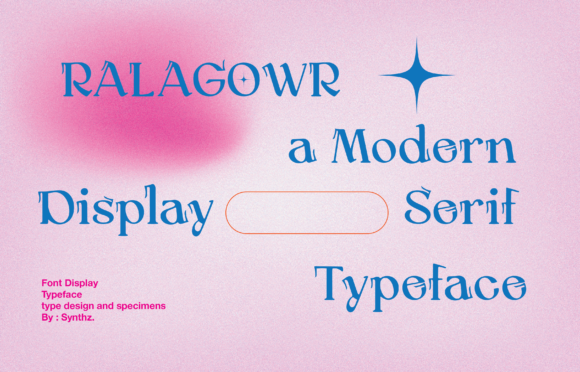
In a world of digital monotony, where fonts often blend into the background, Ralagowr emerges as a beacon of creativity and distinction. This impeccable serif font, meticulously designed by Synthz, possesses an undeniable allure that transcends the ordinary. With its captivating curves and elegant lines, Ralagowr transforms words into art, breathing life into your designs.
Step into a realm of boundless possibilities, where Ralagowr's versatility knows no bounds. Its timeless beauty lends itself effortlessly to logos, branding materials, and marketing campaigns, imbuing them with an air of sophistication and professionalism. Unleash your imagination and watch as Ralagowr elevates your designs to new heights, leaving an unforgettable impression.
Picture the perfect framed quote, adorned with Ralagowr's intricate details. The words dance across the page, evoking emotions and capturing attention with every stroke. Ralagowr's ability to convey depth and meaning transforms ordinary text into a visual masterpiece, making it the ideal choice for those seeking to create truly impactful designs.
Embrace the power of Ralagowr and watch as your designs blossom into works of art. Its timeless charm and versatility will captivate audiences, leaving them inspired and eager for more. Whether you're a seasoned designer or just starting, Ralagowr is the perfect font to elevate your creations to new heights.